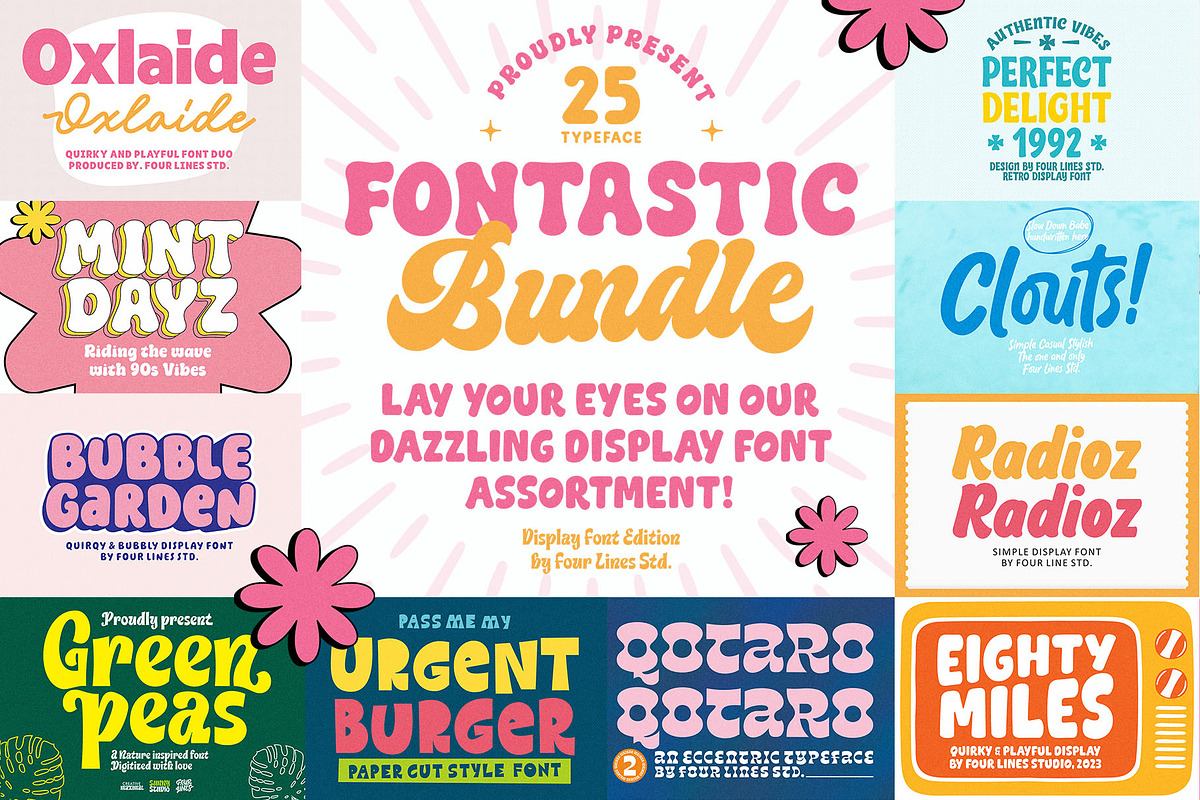
Fontastic Bundle – Display Font Free Download is a vibrant and diverse collection of eye-catching typefaces designed to make your projects pop. Packed with bold, playful, and highly stylized display fonts, this bundle is perfect for posters, branding, product packaging, YouTube thumbnails, children’s projects, and creative social media content.
Each font in the Fontastic Bundle – Display Font Free Download brings its own unique flair—from quirky and fun to loud and expressive—making it easy to mix, match, and customize your visuals with personality. Whether you’re aiming for fun, funky, or downright fantastic, this bundle has the perfect font for the job.